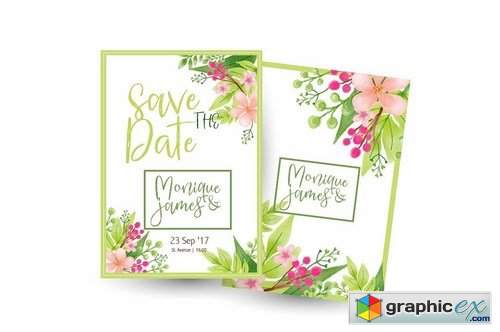
ROTTERDAM STREET - handlettered
Proudly presents our latest product Rotterdam Street. I hope you are interested in this font,The fonts are great for product logo,wedding card logo, Banner, Graphic design, clothing brand logo, and much more.